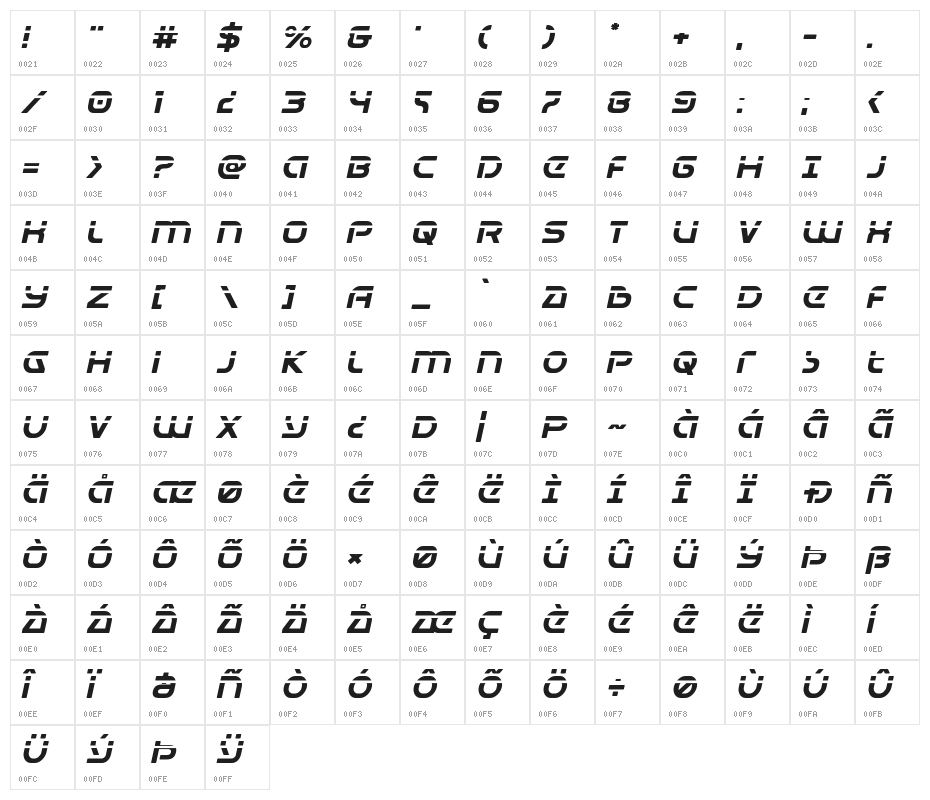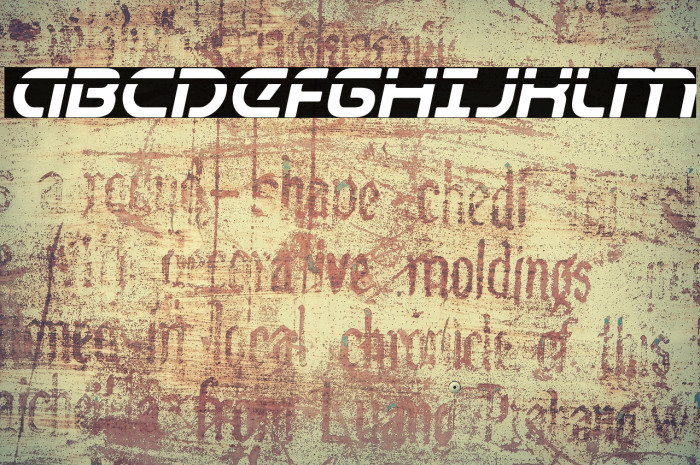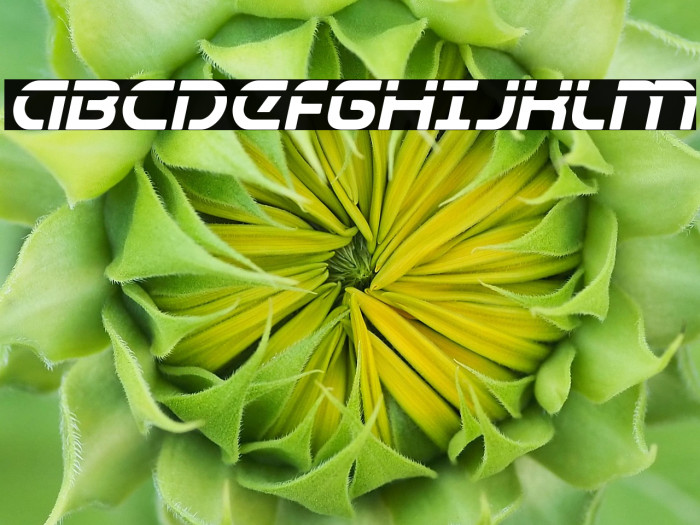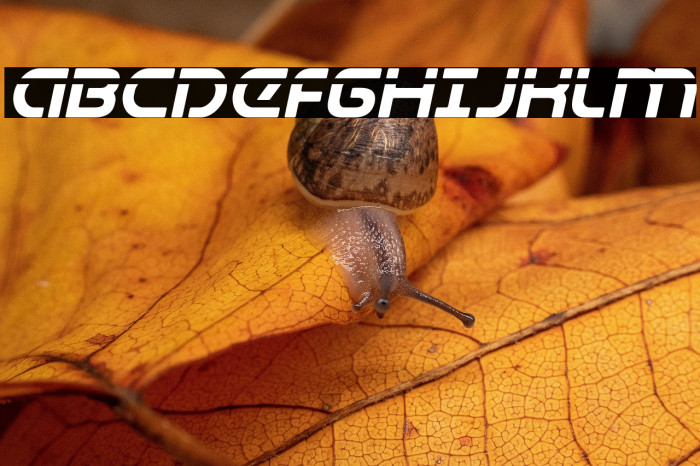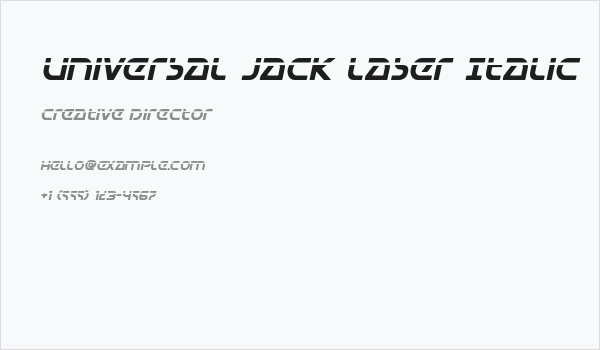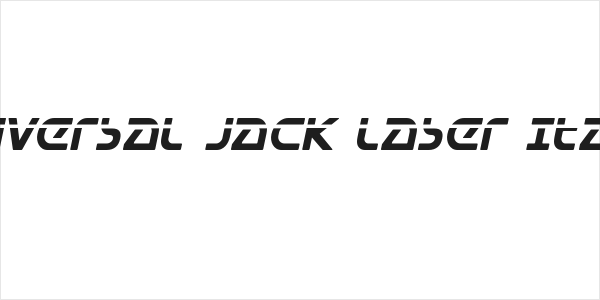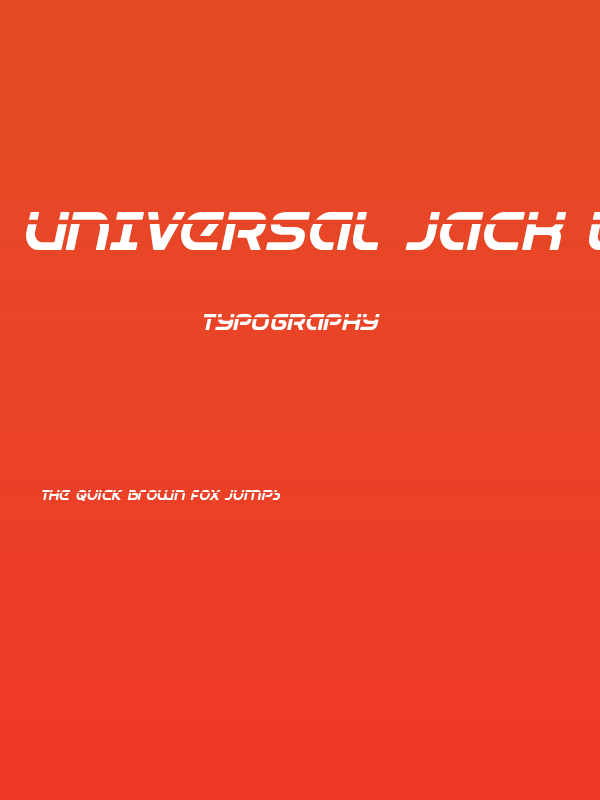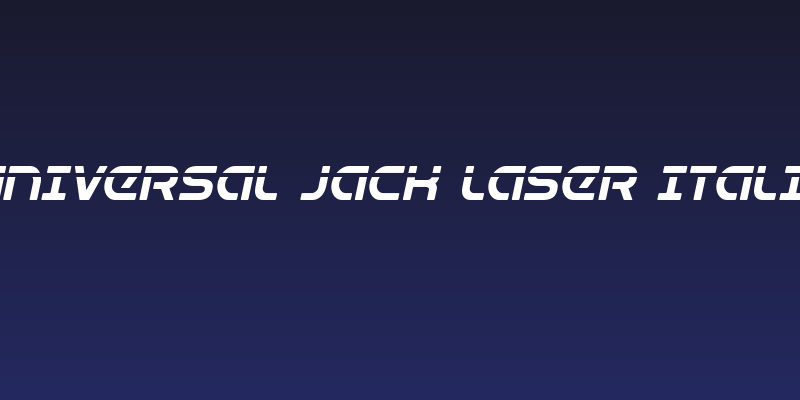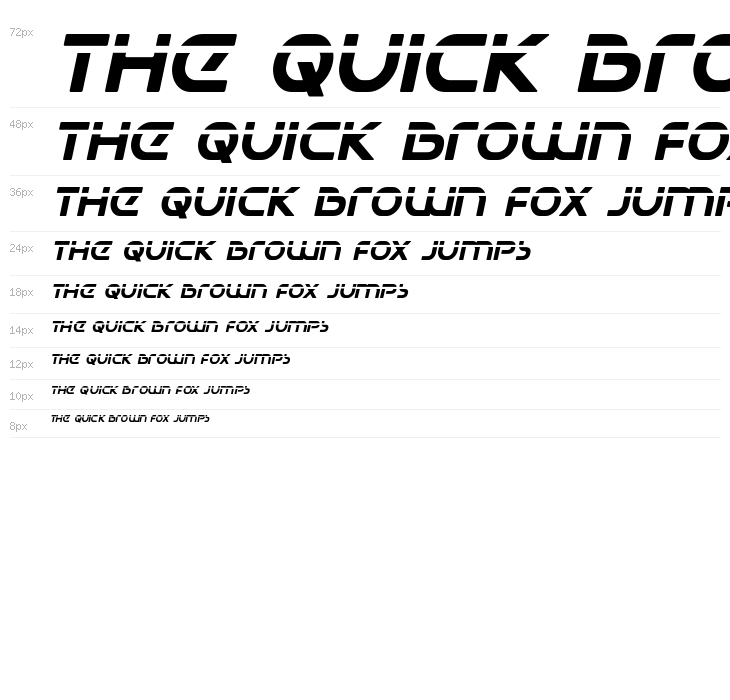
Universal Jack Laser Italic Font
Universal Jack Laser Italic Description
This font features a futuristic and dynamic design with a strong italic slant, giving it a sense of motion and speed. The characters are bold and angular, with a distinct geometric style that incorporates sharp edges and clean lines. The uppercase and lowercase letters maintain a consistent design, while the numerals and special characters complement the overall aesthetic. The font's unique style makes it ideal for projects that require a modern and edgy look.
| Proposed Projects | Ideal for technology branding, sports team logos, video game titles, and sci-fi movie posters. |